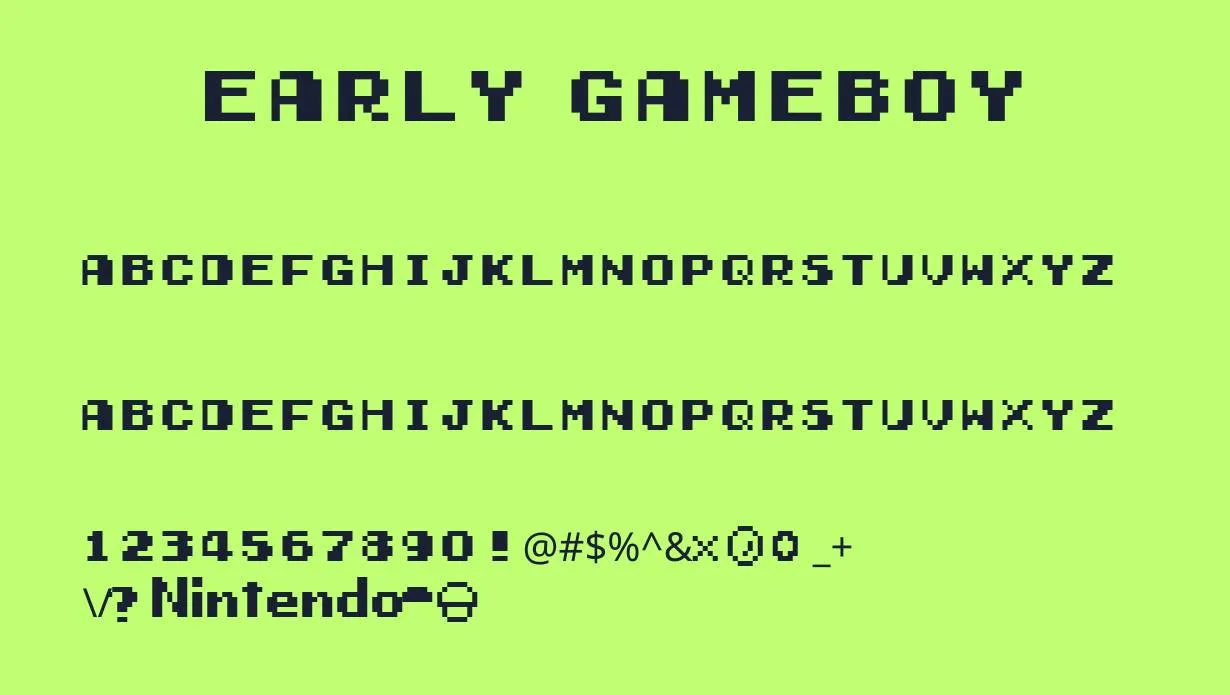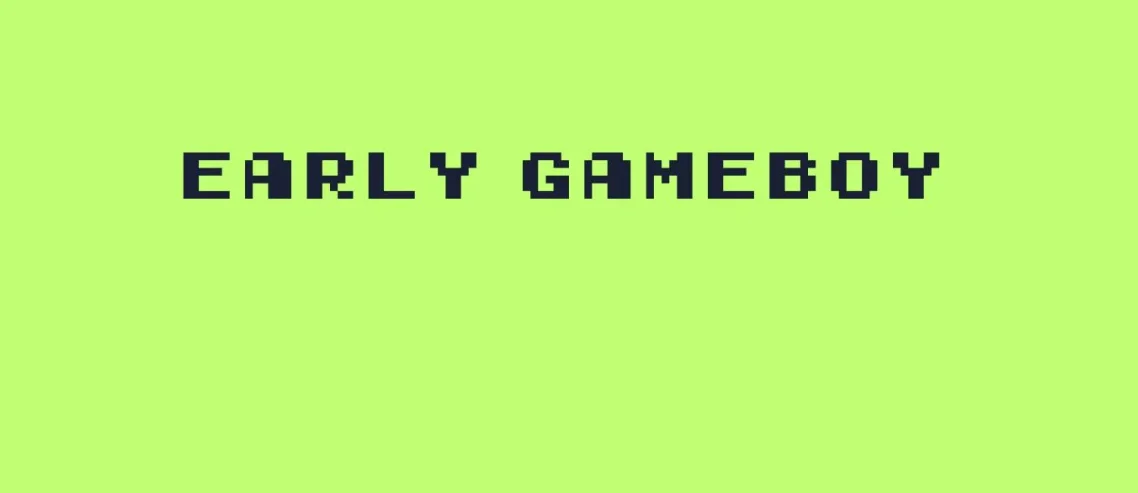
In the realm of pixelated and nostalgic fonts, Early Gameboy Regular embodies the spirit of early video games. This font is a favorite for retro gaming projects and designs that celebrate the appeal of classic video games.
With its pixelated appearance, it adds a nostalgic touch to creative works, fitting into the aesthetic of vintage-themed content and projects aiming to evoke a sense of gaming history.